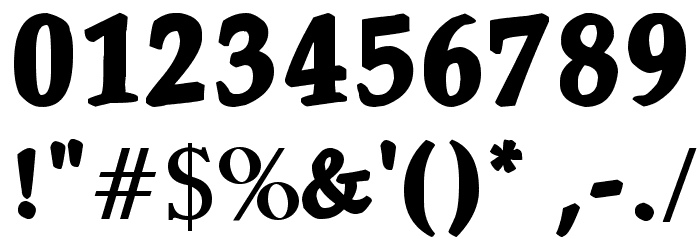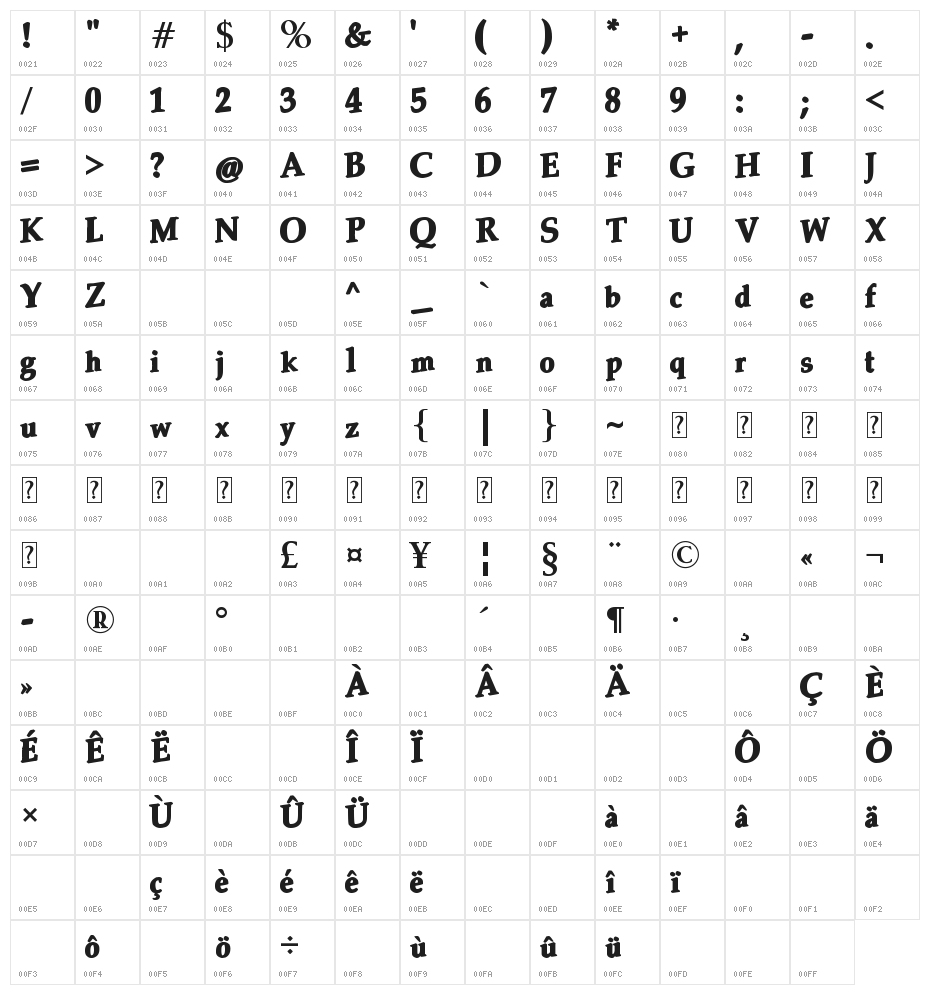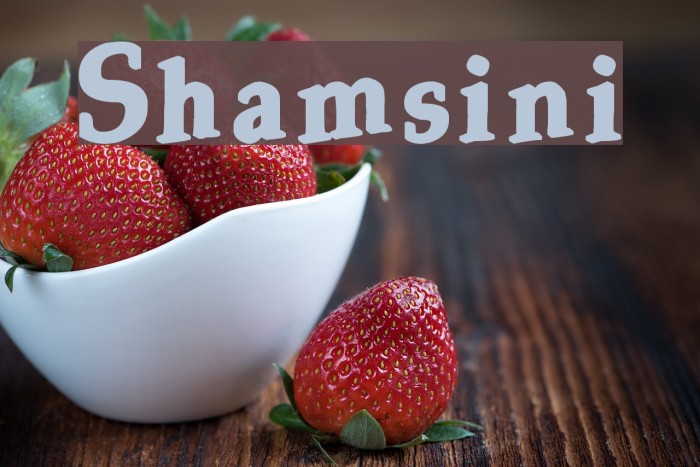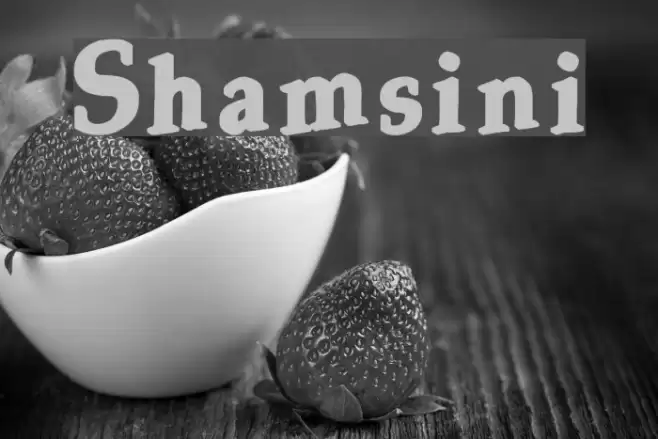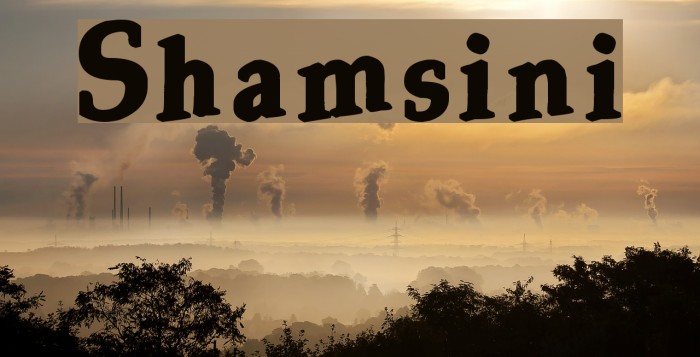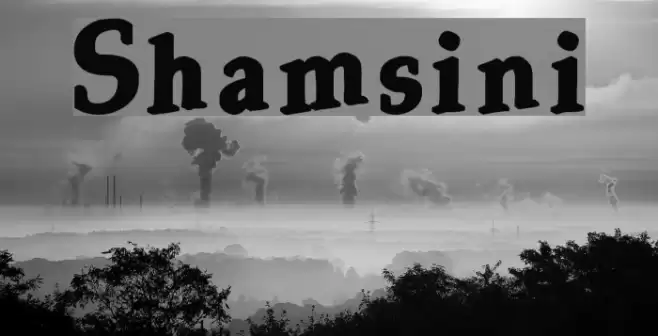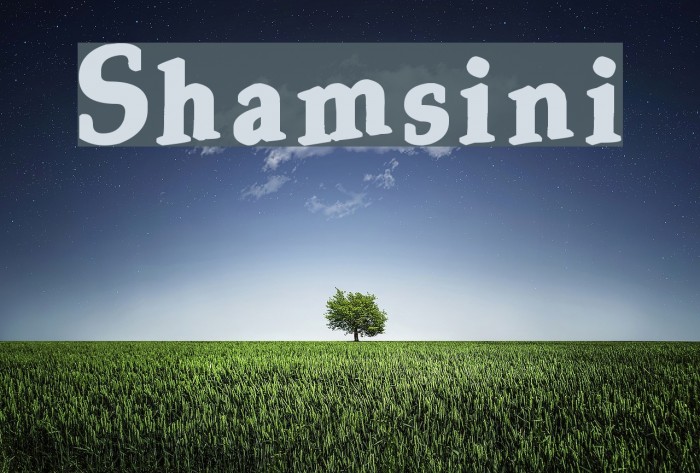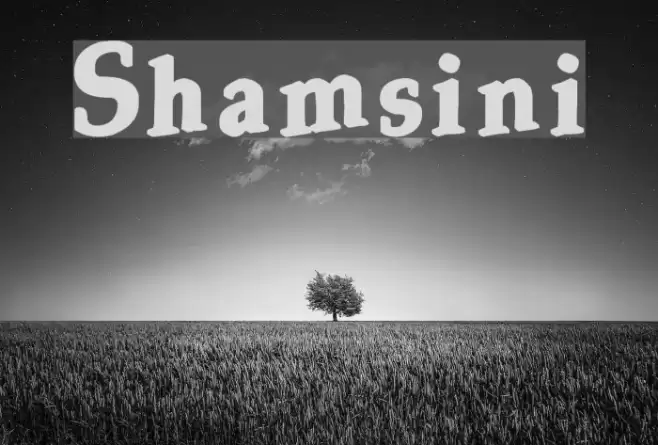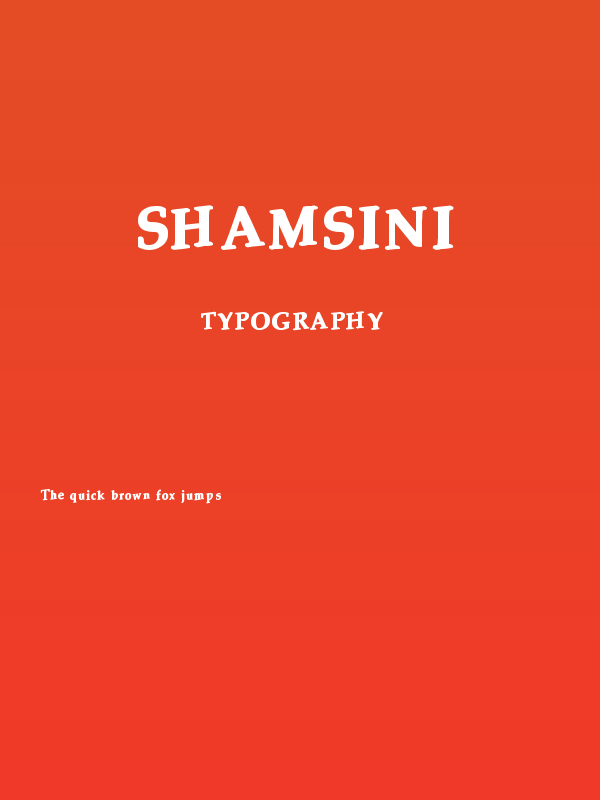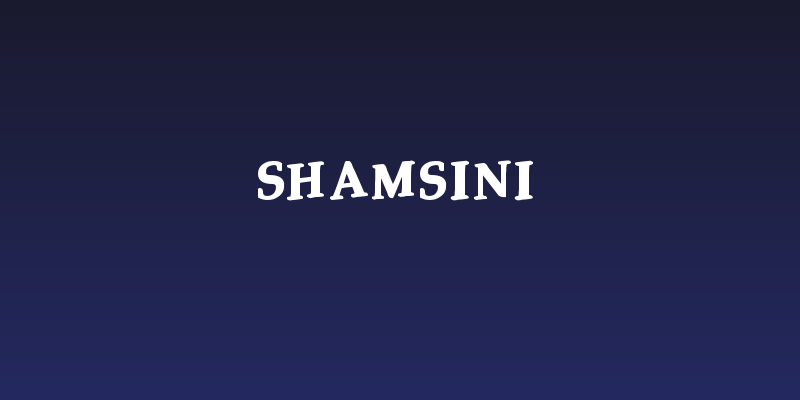
Shamsini Font
Shamsini Description
This font features a bold and robust design with a strong presence, characterized by thick strokes and a slightly condensed appearance. The serifs are pronounced, adding a touch of classic elegance while maintaining a modern feel. The uppercase letters are uniform and commanding, while the lowercase letters offer a harmonious balance with their rounded forms. Numerals are bold and clear, ensuring readability. Special characters are distinct and well-integrated, making this font versatile for various applications.